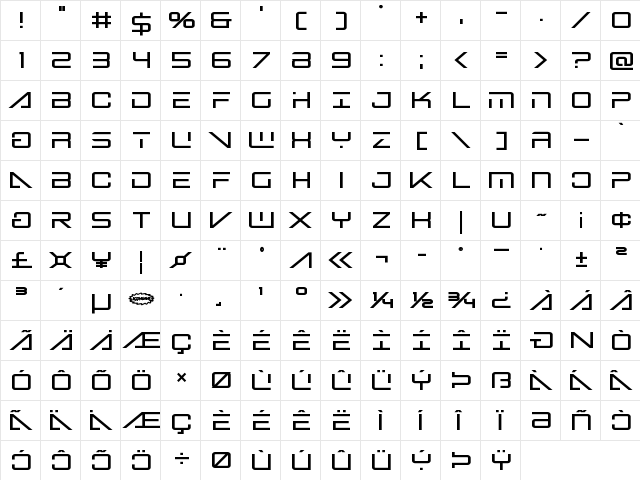
Banshee Pilot Bold Bold
Design Context for Banshee Pilot Bold Typeface
Banshee Pilot Bold is a composed and adaptable typeface that performs quietly and consistently across a wide range of design contexts. The heavy weight commands attention and anchors typographic hierarchies.